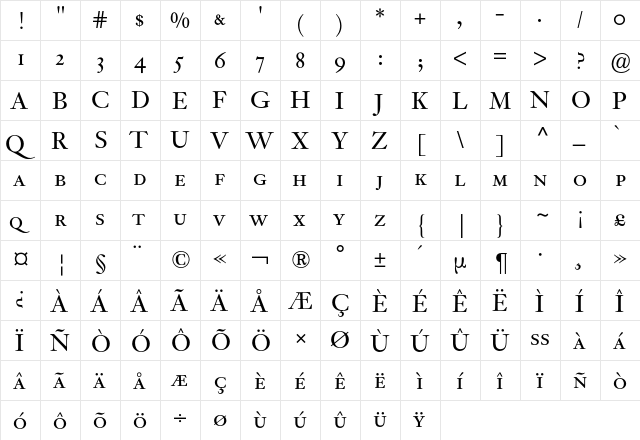
Janson Expert BQ Regular
Design Context for Janson Expert BQ Typeface
Janson Expert BQ offers clean, dependable letterforms without strong stylistic allegiance, making it a practical choice for designers who need flexibility.
Pro Tip: Use Janson Expert BQ in both headline and body roles to test its range before committing to a single application.